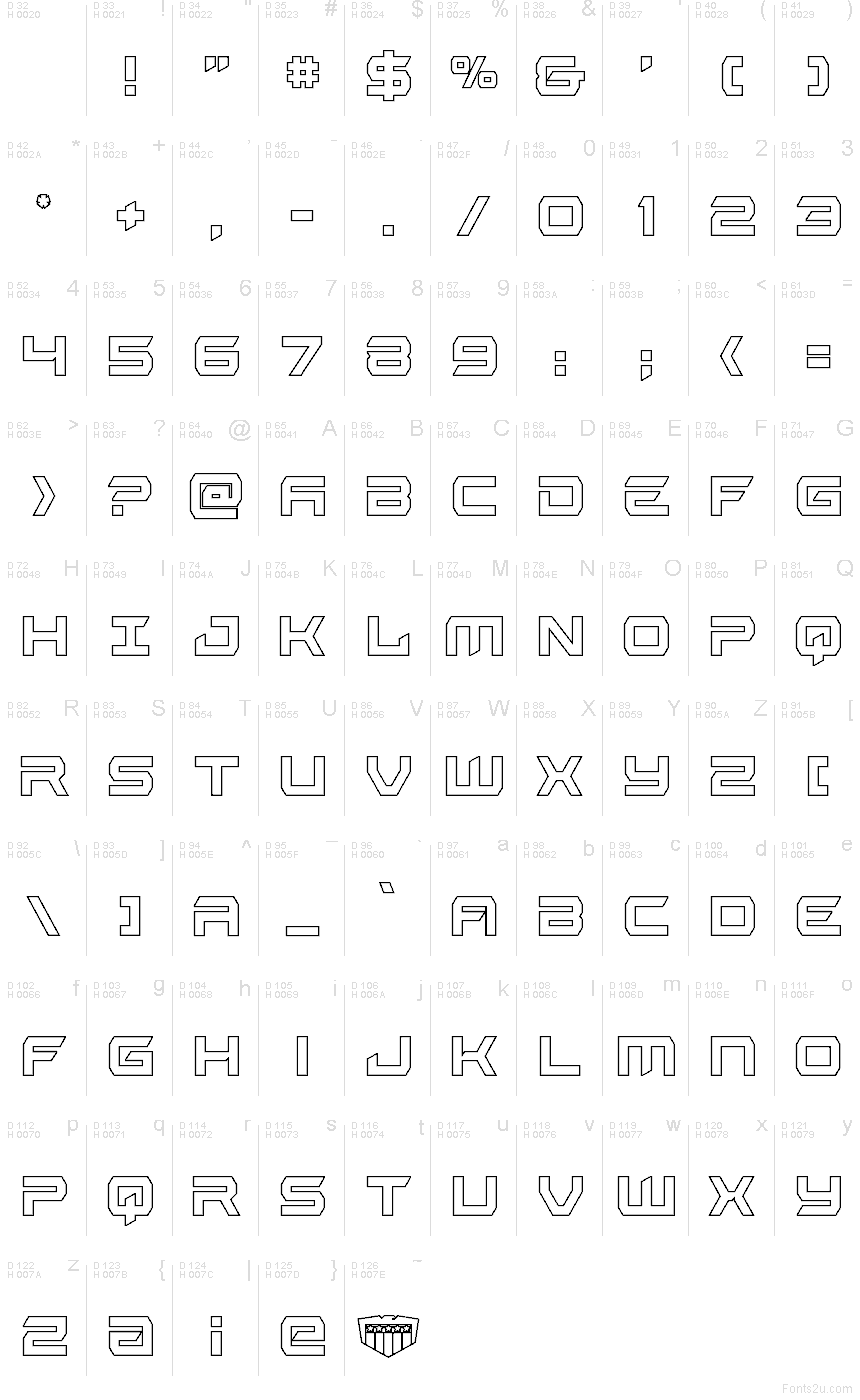
Jurist Dire Outline
Jurist Dire Outline font by Iconian Fonts is a free futuristic display typeface that looks like it was pulled straight from a neon-lit control panel. The angular skeletons and hollow, circuit-like strokes give each word a clean, wired energy, while the tight geometry keeps everything feeling sharp and engineered. As part of the Jurist Dire family, this outline style adds a sleek, technical layer that’s bold without feeling heavy.
Using Jurist Dire Outline, headlines snap to attention on sci-fi posters, esports branding, tech event graphics, stream overlays, and futuristic UI mockups. This free font shines on large titles where the outline shapes can breathe and glow, especially against dark gradients or holographic textures. Pair it with a simple, neutral sans-serif for body copy and you’ll get a crisp, cinematic contrast that still feels cohesive.